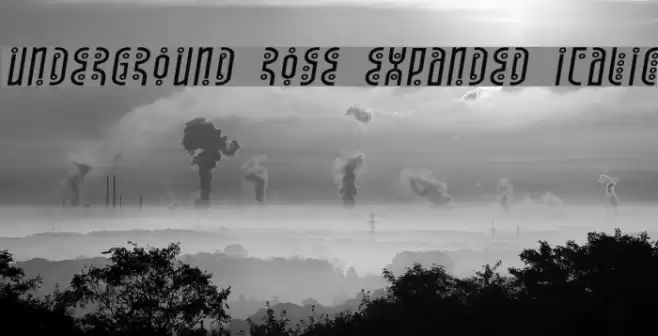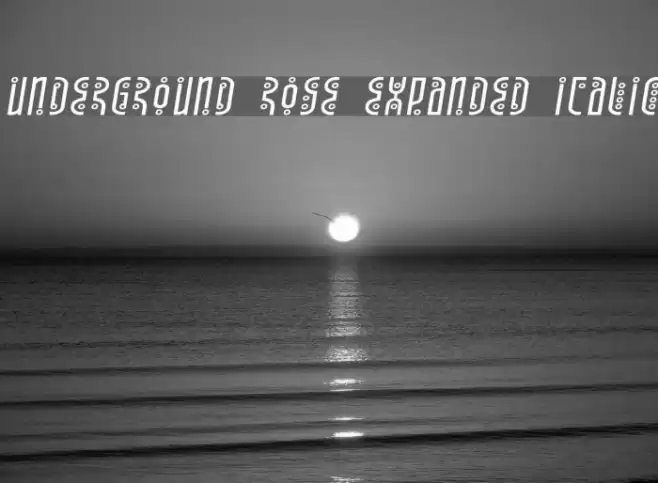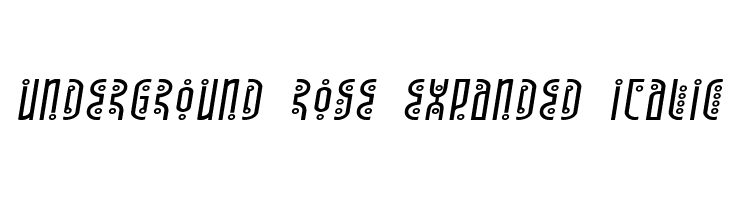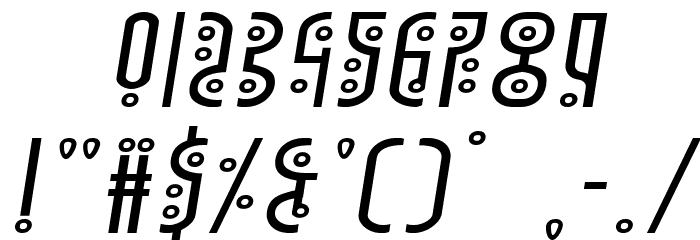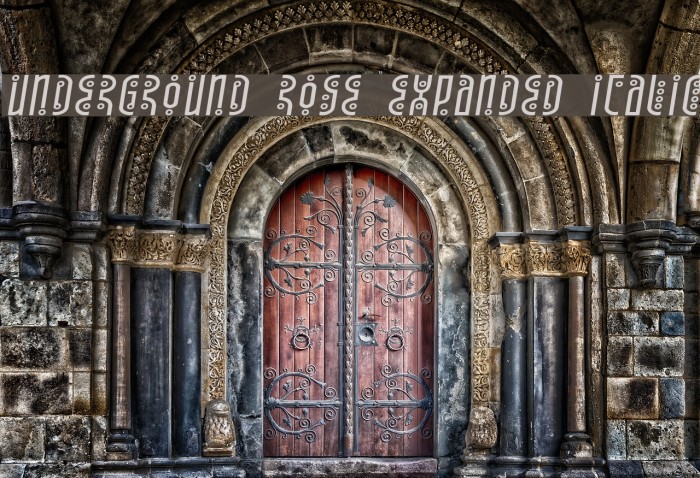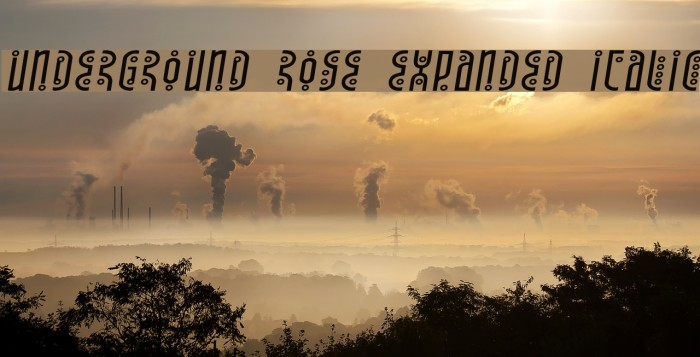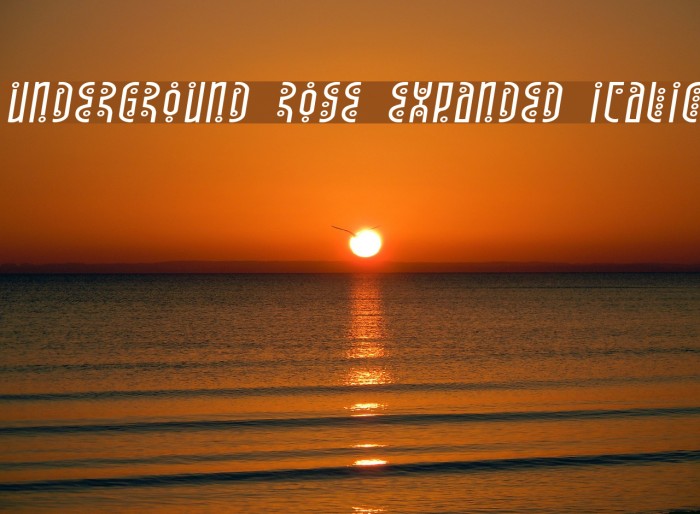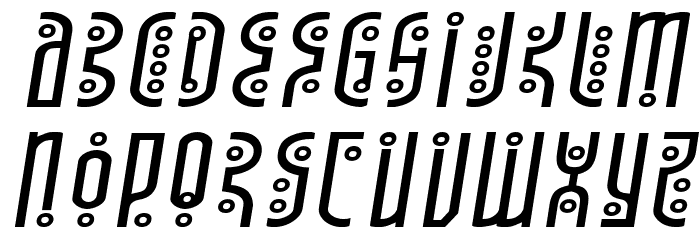
Underground Rose Expanded Italic Font
Underground Rose Expanded Italic Description
This font features a unique and modern design with an expanded and italicized style. The characters are adorned with circular embellishments, giving it a decorative and futuristic appearance. The strokes are consistent in thickness, providing a medium contrast that enhances readability while maintaining its artistic flair. The font's expanded width allows for a spacious and airy feel, making it suitable for creative and bold design projects. Its distinctive style is eye-catching and memorable, perfect for making a statement in various visual contexts.
A modern, expanded, and italicized font with decorative circular accents from Uncategorized fonts.
- Proposed Projects: Ideal for branding, posters, album covers, and any project requiring a bold and artistic touch.